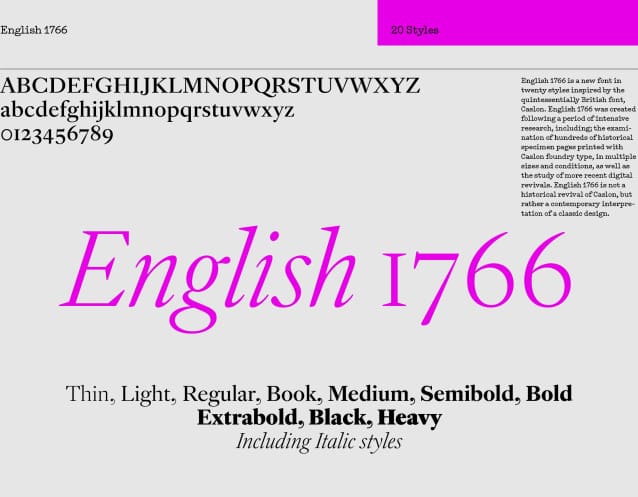
A2 English 1766 Font Family
A2 English 1766 Font Family is a new font with 20 styles inspired by the quintessentially British font, Caslon. English 1766 was created following a period of intensive research, including the examination of historical type specimen pages printed with Caslon foundry type in multiple sizes and conditions, as well as the study of more recent digital revivals. English 1766 is not a historical revival of Caslon but rather a contemporary interpretation of a classic design.
English 1766: Key Features: Sharp triangular serifs, Large x-height, Advanced language support, Extensive weight range (20 styles), Swash characters, Small Caps, Multiple number systems, Expansive Ligature set.